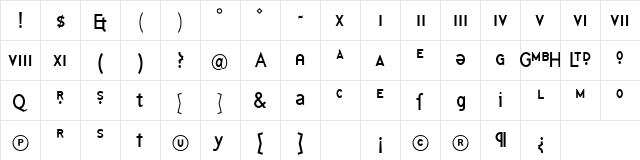
Design Context for GfIndex-TSetAlts-Book Typeface
GfIndex-TSetAlts-Book is a composed and adaptable typeface that performs quietly and consistently across a wide range of design contexts.